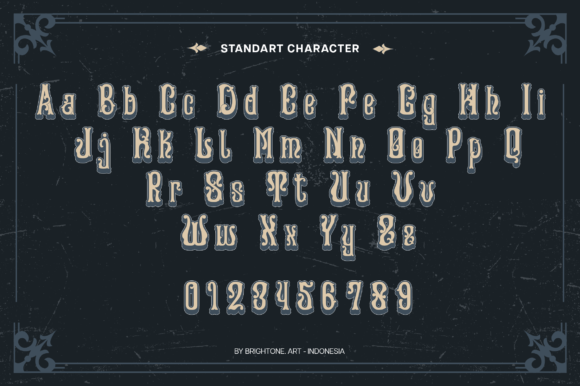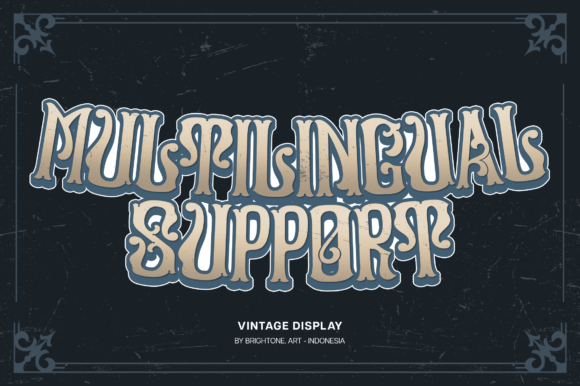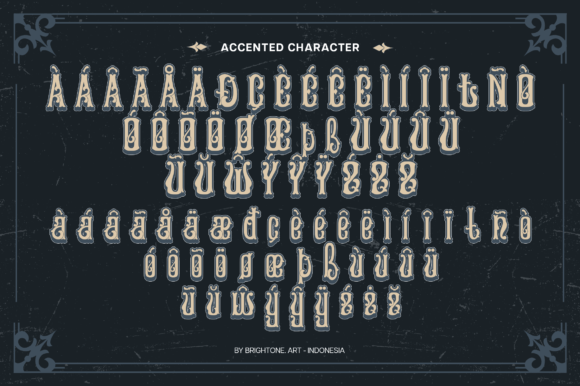
Introduction to Semifloyd Font
Semifloyd is a classic blackletter font with good style and unique touch.
Semifloyd is suitable for your logo lettering, logo, label, packaging, sticker, branding, and many more creations This font is PUA encoded, which means you can access all of the glyphs and swashes with ease.
Semifloyd Font offers exceptional quality and versatility, making it a valuable addition to your design toolkit. Whether you’re creating for personal projects or commercial use, Semifloyd Font delivers professional results.